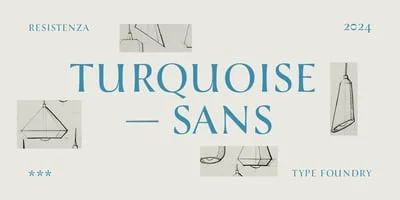
Turquoise Font
The Turquoise Font excels in various design applications including tropical ocean resort branding, aquamarine jewelry marketing, coastal spa communications, turquoise gemstone packaging, ocean-themed wellness centers, marine conservation identities, tropical vacation promotions, seaside boutique signage, aqua-themed beauty brands, and serene oceanic projects that demand turquoise elegance and aquatic sophistication.
What makes the Turquoise Font exciting is its serene embodiment of oceanic beauty and gemstone tranquility through letterforms that capture the essence of turquoise waters and the calming allure of aquamarine hues. This typeface demonstrates exceptional serenity through carefully crafted characters that suggest the gentle movement of tropical waters, the precious clarity of turquoise gemstones, and the peaceful harmony that makes turquoise colors so emotionally soothing and visually captivating. The font's turquoise personality makes it perfect for wellness brands and jewelry companies seeking to communicate oceanic authenticity, gemstone elegance, and the kind of tranquil beauty that creates memorable aquatic experiences through typography that literally flows with turquoise serenity.
The Turquoise Font family typically includes serene weight variations that enhance the oceanic aesthetic, featuring flowing styling options and extended character sets optimized for wellness communications and jewelry applications. These family options often include aquatic-inspired alternates, ocean symbols, and gemstone decorative elements that provide designers with comprehensive tools for creating authentically oceanic typography that celebrates turquoise beauty while maintaining contemporary design appeal and wellness credibility.
Wellness professionals and jewelry organizations consistently select Turquoise Font for projects requiring typography that communicates oceanic authenticity and turquoise sophistication. This typeface delivers exceptional performance in wellness marketing, jewelry branding, and oceanic communications where establishing tranquility and creating peaceful atmosphere is essential for serene engagement. The font's turquoise character makes it particularly effective for spa and gemstone applications. Download Turquoise Font today to access this serenely beautiful typeface that transforms oceanic communications with its turquoise elegance and aquatic sophistication, creating compelling wellness experiences that honor the magnificent beauty of oceanic tranquility while celebrating the peaceful harmony that defines authentic turquoise culture and gemstone excellence.